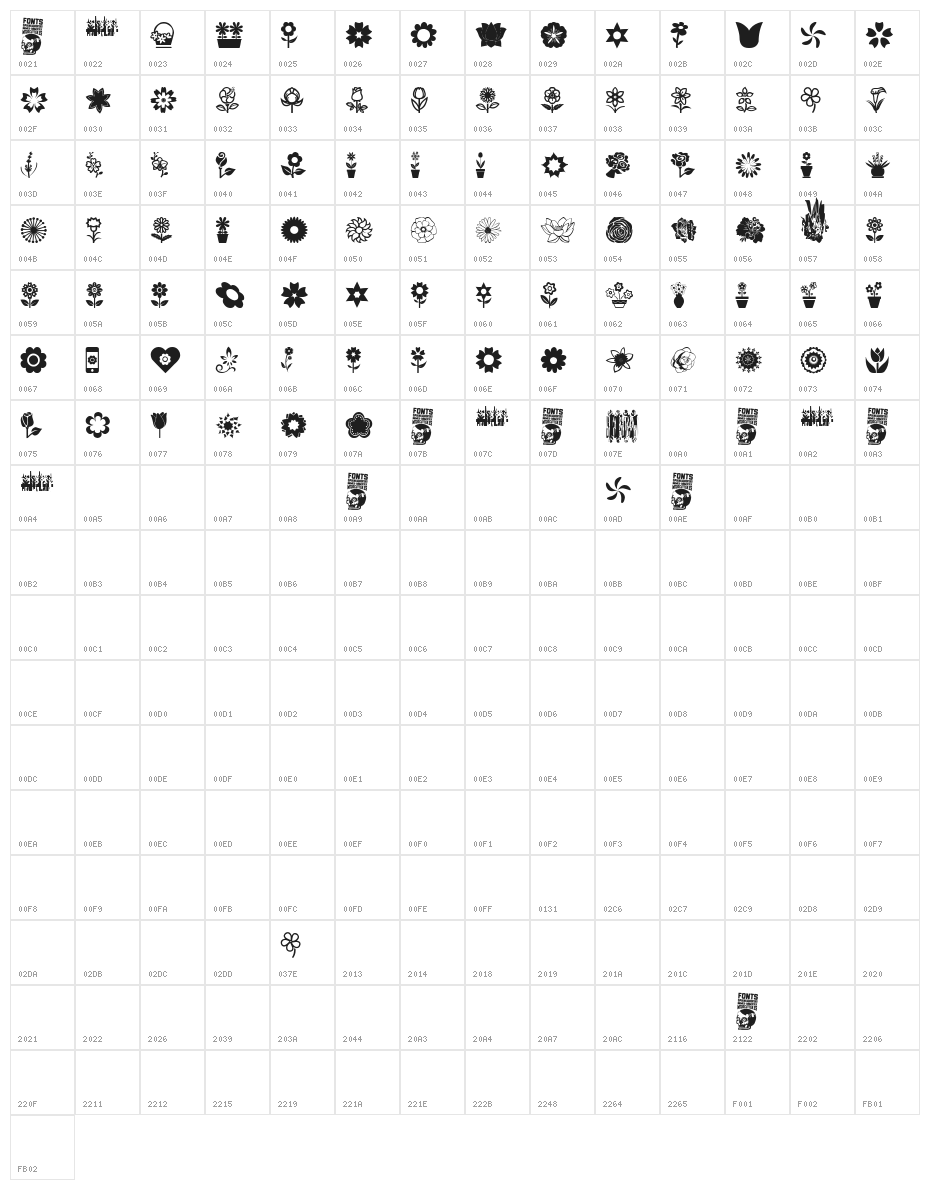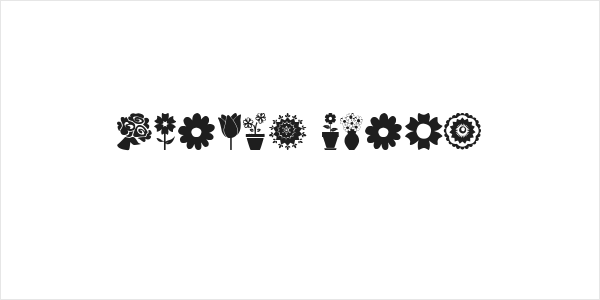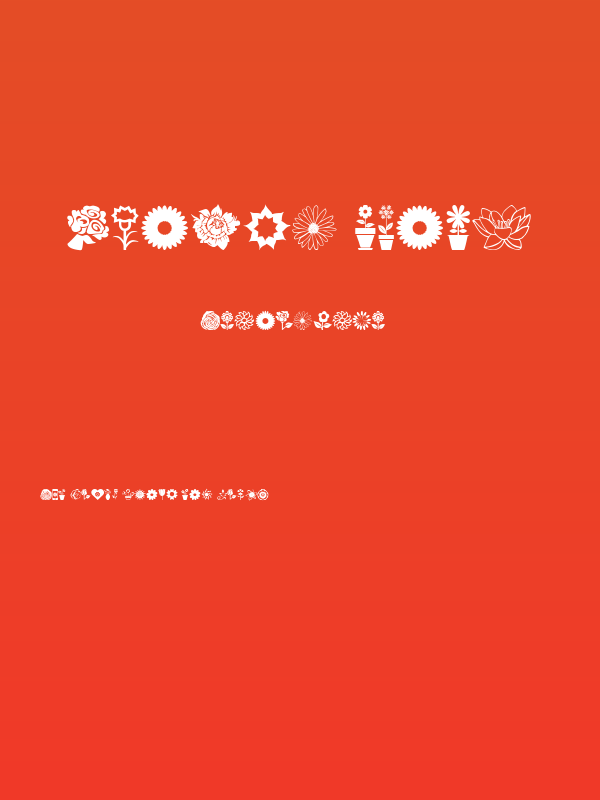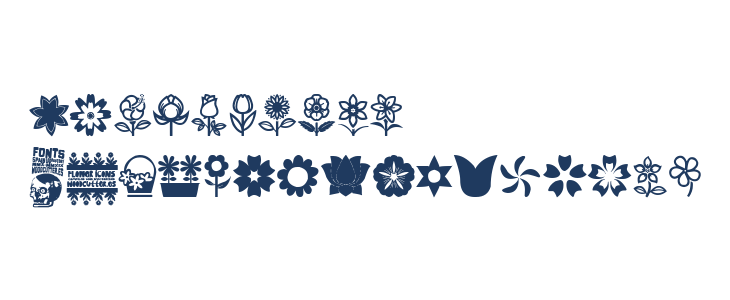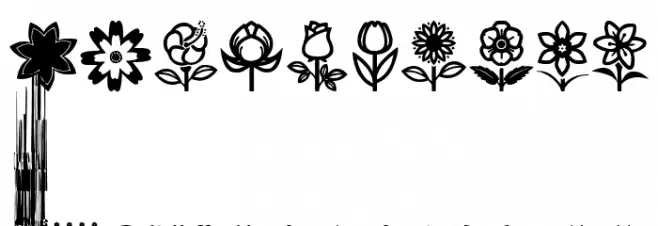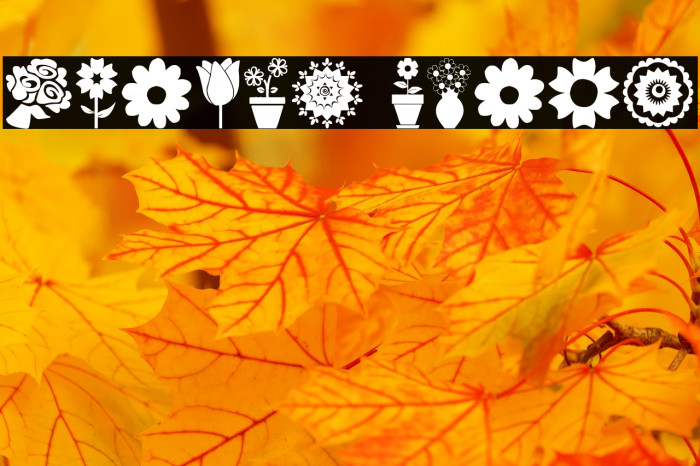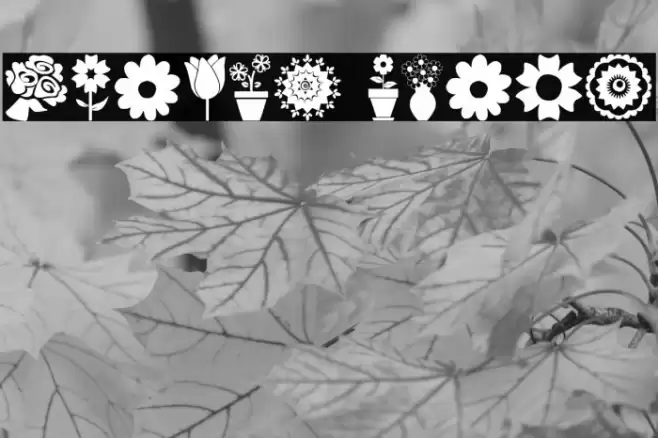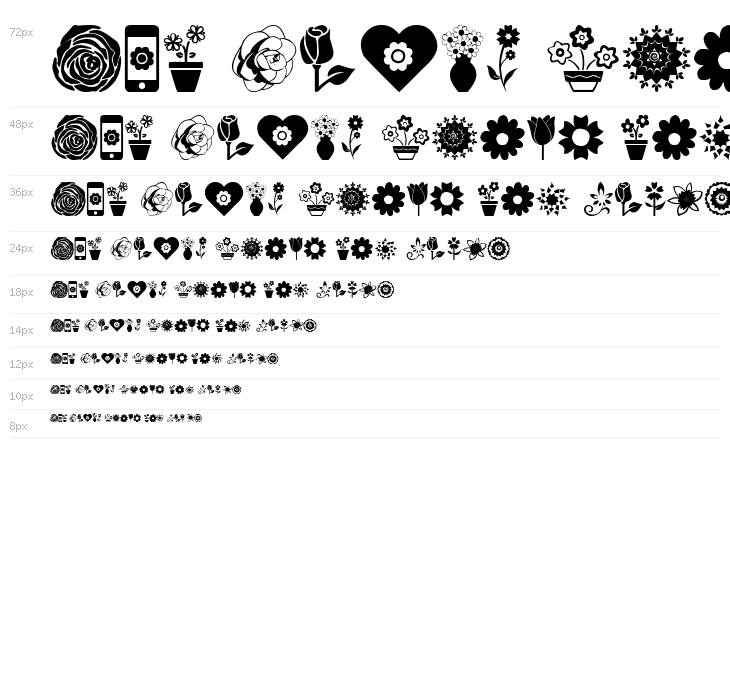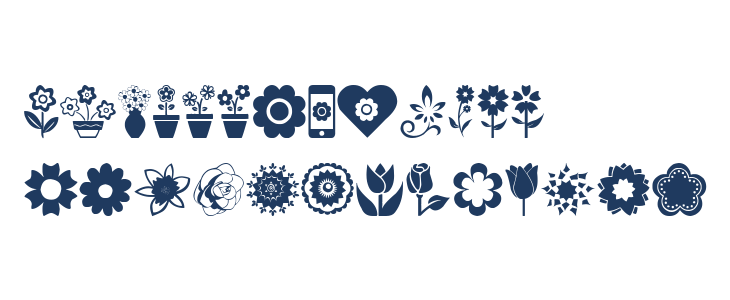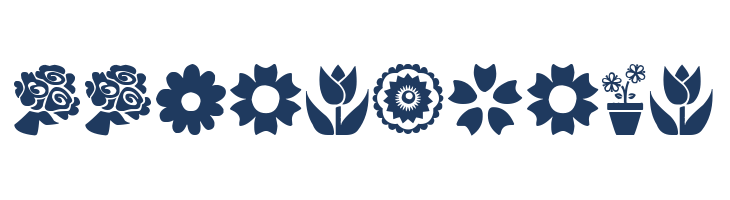
Flower Icons Font
Flower Icons Description
A decorative icon set featuring a wide variety of flower and plant illustrations, including potted flowers, bouquets, stylized blooms, and floral motifs in both solid and outlined styles. The icons are bold, highly graphic, and range from simple to intricate designs.
| Overall Style | Decorative, playful, modern |
| Use Case | Icons, decorative elements, branding, web and print design |
| Proposed Projects | Branding, packaging, greeting cards, invitations, web design, decorative print materials, educational resources. |